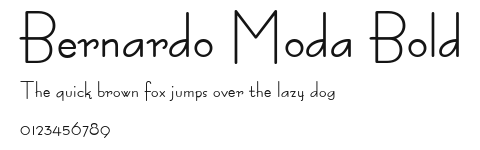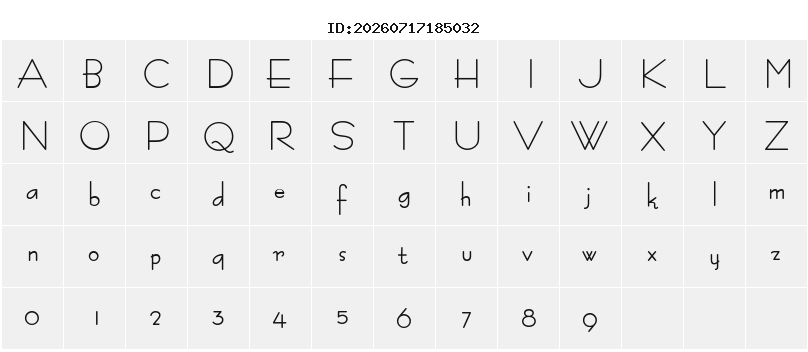
• Font Name: Bernardo Moda Bold
• Designer: Latin glyfs by Lucien Bernhard, cyrillic by P. Wiegel
• Manufacturer: CAT Fonts - Peter Wiegel
About Bernardo Moda Bold.ttf
Bernardo Moda Bold.ttf is a modern, elegant sans-serif font designed for ultimate readability and visual harmony. Perfect for branding, headlines, web design, and print materials.